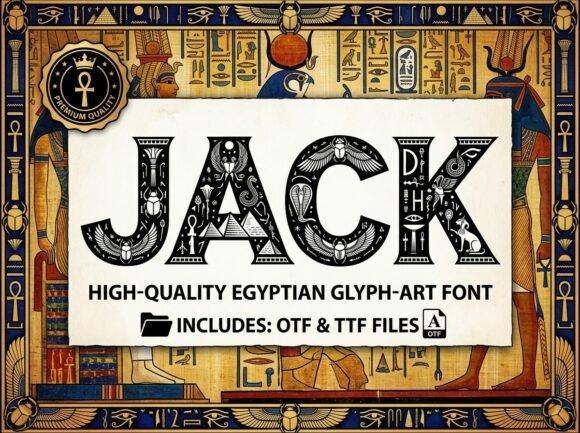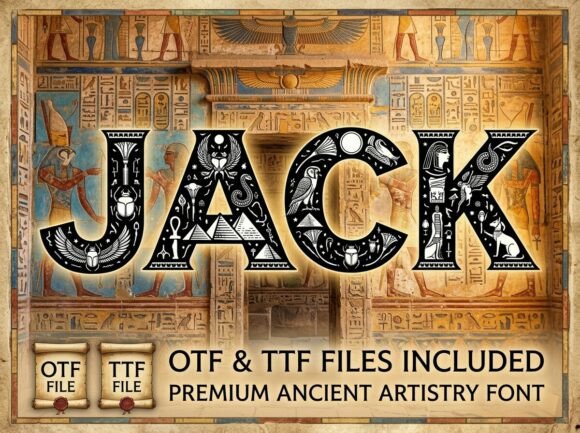
Introduction to Jack Font
Have you ever stared at a blank canvas, feeling stuck, and then suddenly a burst of creativity hits you? The words start flowing, and your imagination runs wild. This is exactly the kind of moment where a font like Jack Font can make all the difference. Its unique artistic elements and strong visual personality can elevate your creative project from ordinary to extraordinary.
As a designer, you’re always on the lookout for that special design resource that can take your work to the next level. Jack Font is a high-quality, all-caps display typeface that’s perfect for bold headlines, artistic logos, and creative packaging. With its professional and polished finish, you can trust that it will add a touch of sophistication to your designs, whether you’re working on a free download or a high-end commercial project.
Key Features of Jack Font
- Unique characteristics: Jack Font features a unique blend of modern and vintage elements, making it an ideal choice for designers looking to add a touch of sophistication to their creative project.
Honest Review: Jack Font
As a designer, I’m always on the lookout for high-quality design resources that can elevate my creative projects. Jack Font is a font that caught my attention, and I was excited to give it a try. Overall, I was impressed with the font’s versatility and readability.
What works well with Jack Font is its high quality design, which makes it perfect for a variety of creative projects. I also appreciate that it’s a free download, making it accessible to designers of all levels. The font’s transparent background is another plus, allowing me to easily customize it to fit my design needs.
- ✨ Highly versatile and readable
However, there are some limitations to consider. Jack Font may not be suitable for all types of designs, particularly those that require a more exotic or unique feel. Additionally, the font’s limited customization options may be a drawback for some designers.
Overall, I’m impressed with Jack Font and would recommend it to designers who are looking for a reliable and high-quality font for their creative projects. With its transparent background and free download, it’s a great addition to any design resource library.